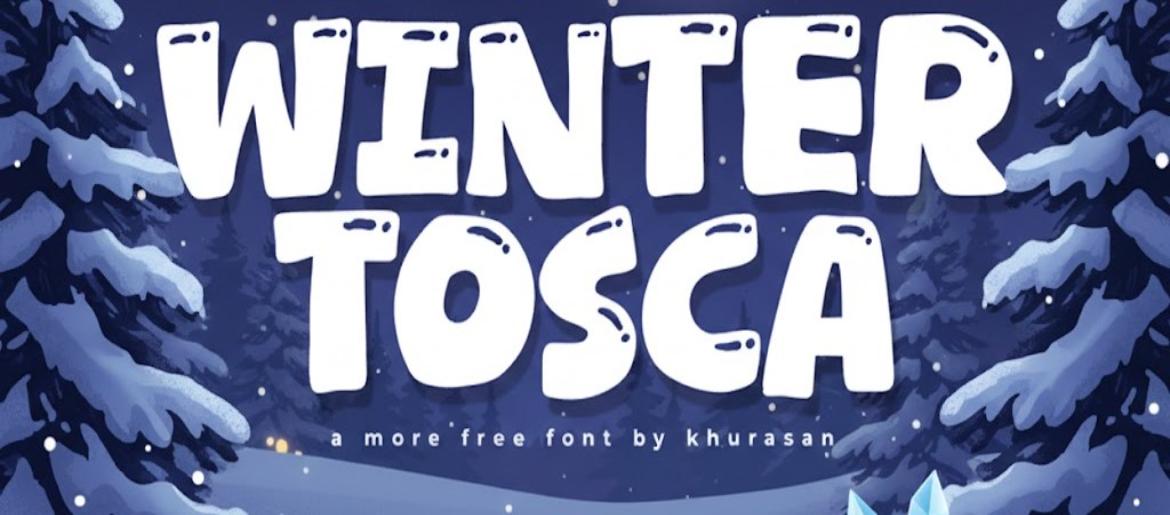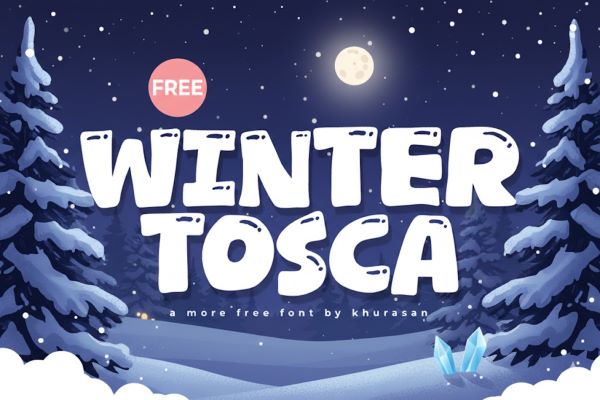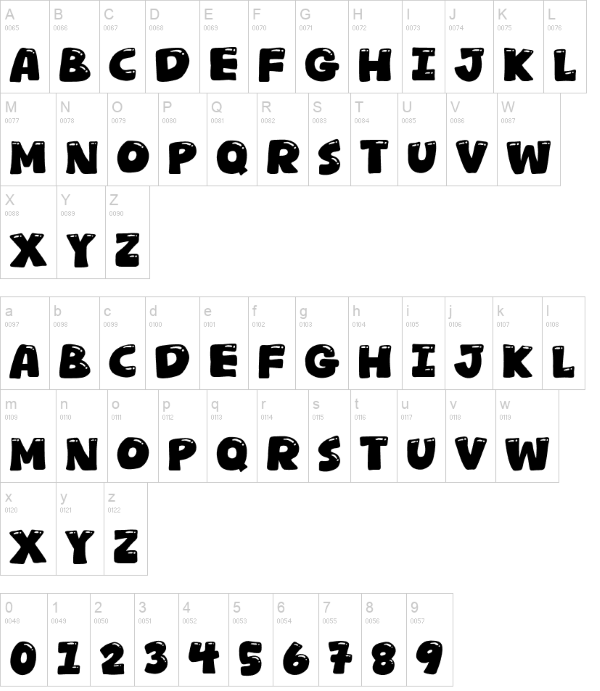
Winter Tosca Font
Winter Tosca font
Winter Tosca Font is an elegant, seasonal cartoon typeface with smooth curves and a warm, festive feel. Its flowing strokes and stylish details make it perfect for winter branding, holiday cards, invitations, gift tags, and cozy seasonal designs. Winter Tosca adds charm, grace, and a magical winter touch to any creative project.
➤ Font Name: Winter Tosca
➤ Designer: Khurasan
➤ Style: Cartoon